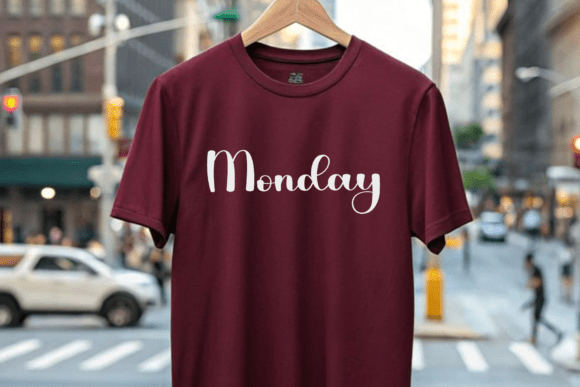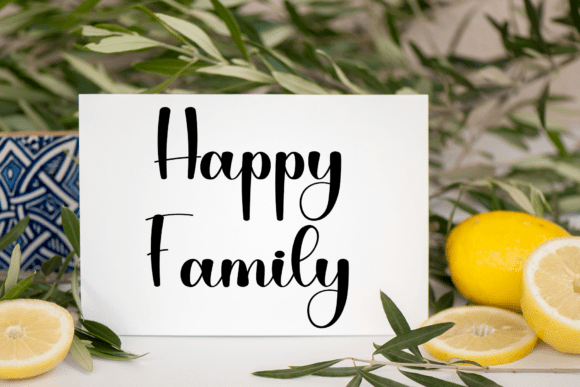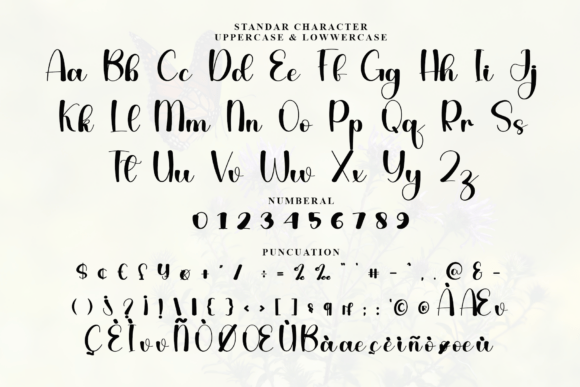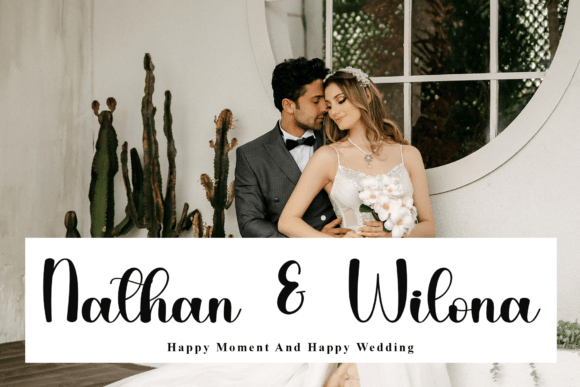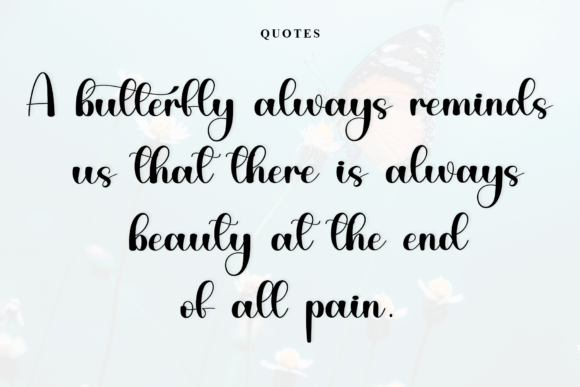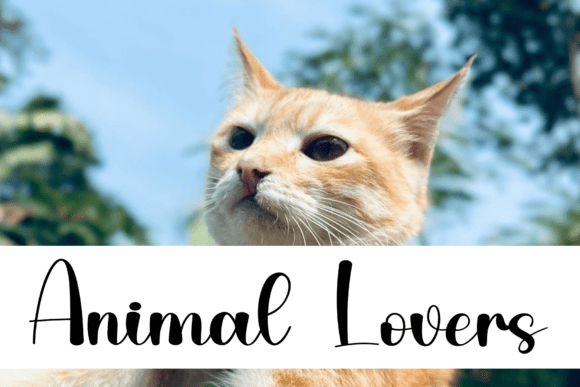
Flourish with a Touch of Whimsy: Introducing Butterfly Font
Have you ever found yourself scribbling down a creative idea, only to be interrupted by the realization that your handwriting just isn’t cutting it? We’ve all been there, struggling to convey our artistic vision with plain, everyday script. But what if you could infuse your designs with a dash of elegance and playfulness, all at once?
Enter Butterfly Font, a delicate handwritten font designed to add a touch of whimsy to your creations. Perfect for writing letters, crafting invitations, labeling food products, or simply adding flair to titles and headings, this beautiful font is a game-changer for designers looking to elevate their work. With its unique blend of sophistication and playfulness, Butterfly Font is a valuable addition to any design toolkit.
Key Features of Butterfly Font
- Unique Characteristics: The Butterfly Font features a unique blend of elegance and playfulness, with intricate details and flowing lines that evoke the beauty of butterflies.
- Font Style: The font is available in three styles: Regular, Italic, and Bold, providing versatility for various design applications.
Butterfly Font Review
Overall, I found the Butterfly Font to be a beautiful and delicate addition to any design project. Here are some of its standout features:
- ✨ Elegant and refined appearance: The Butterfly Font’s sleek lines and subtle curves make it perfect for projects that require a touch of sophistication.
- ✨ High legibility: Despite its elegant appearance, the font is still highly legible, making it a great choice for body text or titles.
- ✨ Versatility: The Butterfly Font comes in a range of weights and styles, making it easy to use in a variety of contexts, from branding to publishing.
- ⚠️ Limited character set: While the font includes a wide range of Latin characters, it may not include some of the more obscure or non-Latin characters that designers may need.
- ⚠️ Not suitable for bold headlines: While the font is great for body text, it may not be the best choice for bold headlines or titles, as it can become somewhat lost in larger sizes.
In my opinion, the Butterfly Font is a great choice for designers who want a elegant and refined font for their projects. While it may have some limitations, its beauty and versatility make it a worthwhile addition to any design library.
Use the Butterfly Font to add a touch of whimsy and elegance to your designs. It pairs well with cursive and script fonts. Experiment with different font sizes and styles to achieve the desired effect.
The Butterfly Font is ideal for:
- Handmade craft and DIY projects